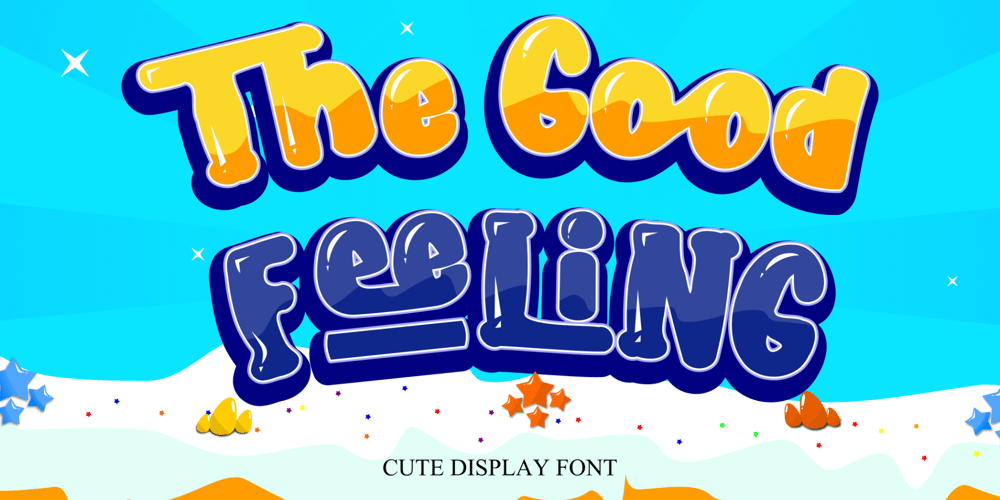
The Good Feeling
The Good Feeling font
The Good Feeling Font Family was designed by Rusdin Hendarsono and published by Alfareaniy. The Good Feeling contains 1 styles and family package options. The Good Feeling is a fun, jolly, and incredibly charming display font. It embodies playfulness and authenticity and is the perfect choice for any children’s activity or school project.